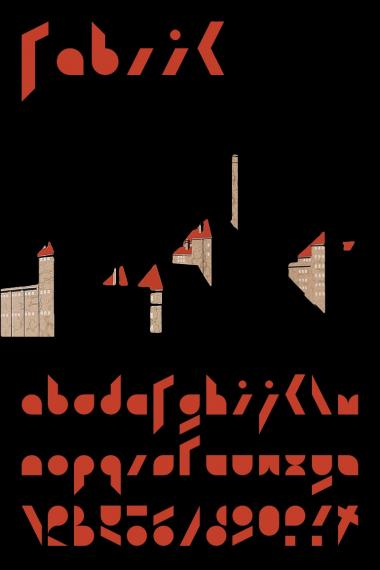
What a shock ! Very exciting stylish minimal font. Excellent. The only glyph that does not work in my opinion is the "z". I think it needs to be different than the reversed "s".
This time Afrojet had a good taste for his Top Pick. You really deserved it ! All is not bad in the Fontstruct cruel world ! Your font simply wonderful :0)
Many Thanks! That's really good news. As to the 'z' I'm waiting for further opinions...
I really like this one, really really good good work.